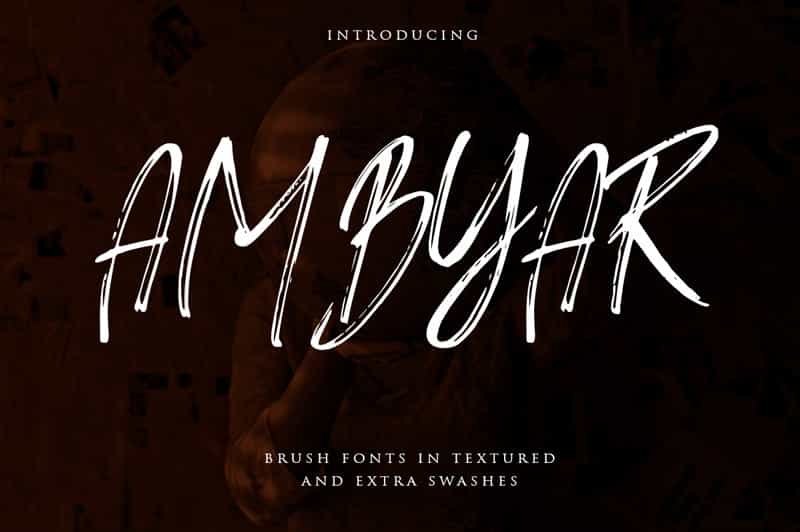
Ambyar is an exquisite font that mainly comes in the brush style, created by Haksen Studio and can be downloaded without any cost for its use in personal projects. The free version has all capital letters and small letters and a few symbols and signs.